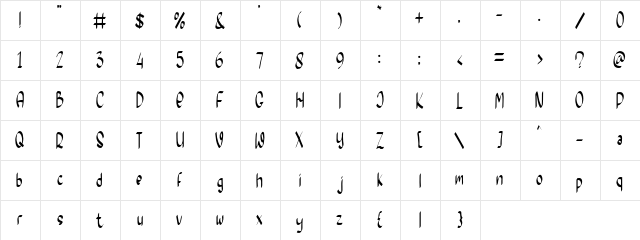
Morning Friday Regular
Design Context for Morning Friday Typeface
Morning Friday is a composed and adaptable typeface that performs quietly and consistently across a wide range of design contexts.